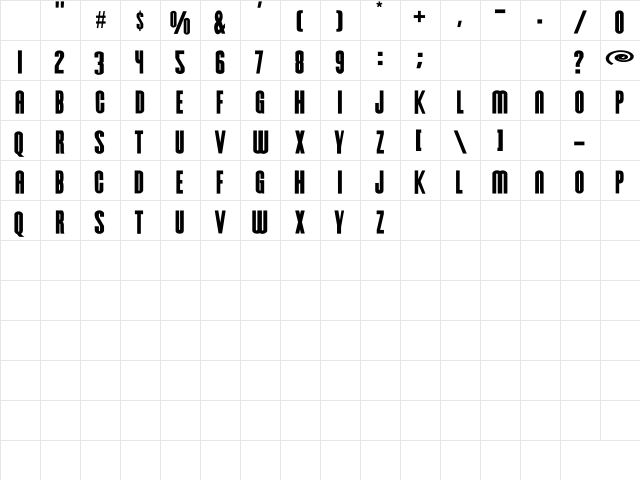
NewUnicodeFont Regular Font Preview
NewUnicodeFont Regular
NewUnicodeFont Regular Font Details
Design Context for NewUnicodeFont Typeface
NewUnicodeFont brings the precise, column-aligned rhythm of monospaced typography to designs that value technical clarity and systematic order.